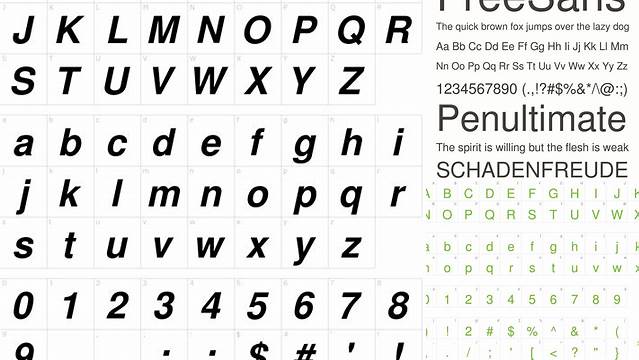
Download FreeSans Font: A Comprehensive Guide
Hey guys! Are you looking to download FreeSans font? Well, you've come to the right place! In this comprehensive guide, we'll walk you through everything you need to know about FreeSans, from its origins and characteristics to where you can download it safely and legally. We'll also explore its various uses and even delve into some alternatives if you're looking for something a bit different. So, buckle up and get ready to dive deep into the world of FreeSans!
What is FreeSans Font?
Let's start with the basics: what exactly is FreeSans? FreeSans is a free font that belongs to the sans-serif typeface family. This means it doesn't have those little decorative strokes (serifs) that you see on fonts like Times New Roman. Sans-serif fonts are often favored for their clean and modern look, making them ideal for a wide range of applications, from body text to headlines. FreeSans was designed as part of the GNU FreeFont project, an ambitious initiative aimed at creating a complete set of free fonts that cover a vast range of characters and languages. The goal was to provide a truly free and open-source alternative to proprietary font families. This makes FreeSans not just a font, but also a testament to the power of collaborative, open-source development. Its versatility and readability have made it a popular choice among designers, developers, and everyday users alike. The font family includes a variety of styles, such as regular, bold, italic, and bold italic, offering flexibility for different design needs. FreeSans is particularly well-suited for on-screen reading due to its clear and legible design, making it a great option for websites, applications, and digital documents. Its extensive character set also supports a wide range of languages, ensuring compatibility for international projects. Whether you're working on a website, a presentation, or a document, FreeSans offers a reliable and aesthetically pleasing solution. The commitment to open-source principles means that FreeSans is not only free to use but also free to distribute and modify, fostering a collaborative environment for font development and usage. The font's consistent design and clear letterforms ensure readability across different platforms and devices, making it a dependable choice for diverse applications. So, if you're looking for a font that combines functionality, versatility, and a commitment to open-source values, FreeSans is definitely worth considering.
Key Characteristics of FreeSans
Now, let’s dig into the key characteristics of the FreeSans font. This font is known for its clean, minimalist design, which makes it incredibly versatile. The absence of serifs gives it a modern and approachable feel, perfect for contemporary designs. The letterforms are carefully crafted to ensure readability, even at smaller sizes, making it a great choice for body text as well as headlines. FreeSans has a relatively uniform stroke weight, contributing to its consistent and balanced appearance. This uniformity enhances its legibility and makes it easy on the eyes, especially when reading large blocks of text. The font's neutral design also means it pairs well with a variety of other fonts, giving you plenty of options for creating visually appealing designs. The character spacing in FreeSans is thoughtfully designed to provide optimal readability. Letters are spaced just enough to be distinct without feeling too far apart, creating a smooth reading experience. This careful attention to detail is one of the reasons why FreeSans is so well-regarded for both print and digital use. In addition to its aesthetic qualities, FreeSans boasts excellent technical characteristics. It is available in various formats, including TrueType and OpenType, ensuring compatibility with a wide range of operating systems and software. The font family includes regular, bold, italic, and bold italic styles, providing the flexibility needed for different design applications. The bold styles are strong and impactful, perfect for headlines and emphasis, while the italic styles offer a subtle elegance for secondary text or captions. The extensive character set of FreeSans is another standout feature. It supports a vast array of characters, symbols, and glyphs, making it suitable for multilingual projects and specialized typography. This comprehensive support ensures that you can use FreeSans in a variety of contexts without worrying about missing characters or compatibility issues. Furthermore, FreeSans is designed to render well on screens of different resolutions. Its clear and crisp appearance ensures that text remains legible even on low-resolution displays, making it a reliable choice for web design and digital publications. This adaptability is crucial in today's multi-device world, where content needs to look good on everything from smartphones to large desktop monitors. In summary, the key characteristics of FreeSans – its clean design, excellent readability, versatile styles, comprehensive character set, and technical compatibility – make it a font that stands out for its functionality and aesthetic appeal. Whether you're a designer, developer, or simply someone who appreciates good typography, FreeSans offers a reliable and attractive option for your projects.